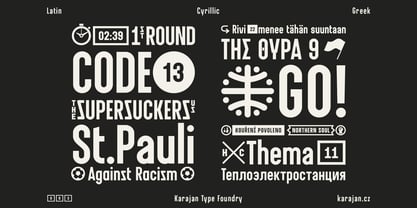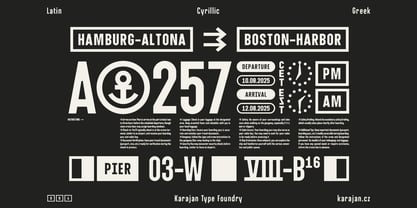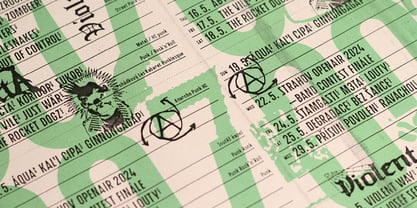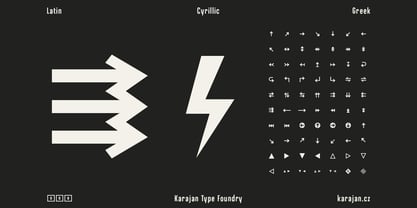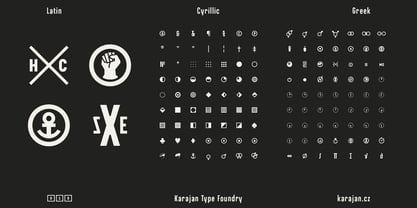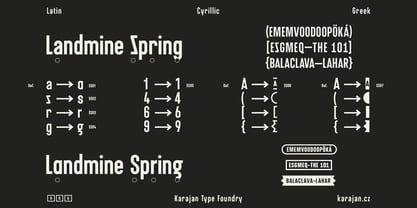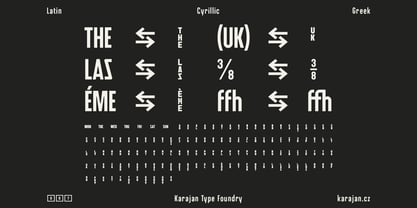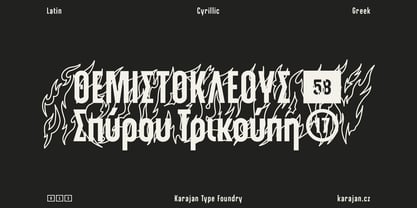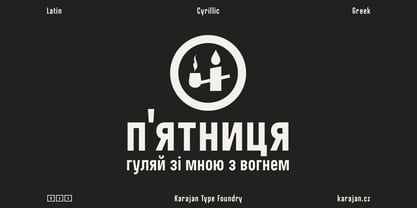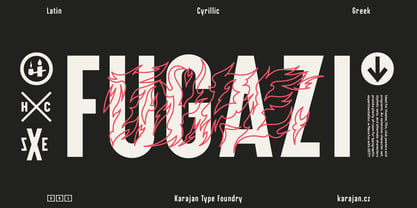
The Fugazi Font Family was designed by Jan Arndt and published by Karajan Type Foundry. Fugazi contains 1 styles. More about this family
This typeface pays tribute to one of the most iconic bands that performed at Klub 007 in Prague's Strahov district, while also honoring Klub 007 Strahov, the oldest surviving music venue in Czechia. Known for its eclectic mix of music genres, including punk, hip hop, ska, reggae, and rockabilly, this venue stands as a cultural beacon for music connoisseurs and enthusiasts alike. Originally crafted for the club's monthly programmes, the typeface features a highly proportional design, making it ideal for both text and headline applications. It boasts a diverse array of glyphs, including discretionary ligatures for international vehicle registration codes and abbreviations for days of the week. Furthermore, it includes genre-related and activist pictograms, along with an extended set of arrows. This typeface is part of a new identity developed by Karel Haloun, Petr Kudláček, and Jan Arndt, elegantly incorporating elements from historical programme flyers through a logotype based on a simple grid. Perfect for branding, editorial design, and web applications, this typeface seamlessly combines functionality with a rich cultural narrative, making it a versatile choice for various creative projects.
Karajan Type Foundry, established in 2024 in Prague, is named after its founders, Karel Haloun and Jan Arndt. This innovative type foundry specializes in crafting headline fonts that push the boundaries of functionality, experimentation, and utility. Karel Haloun, a seasoned type designer, previously led the type design and typography studio at the Academy of Arts, Architecture & Design (UMPRUM) in Prague. His former student, Jan Arndt, brings fresh perspectives to the craft. Their meticulous font creation process emphasizes the richness of each typeface, ensuring optimal application across various design contexts. With a focus on modern aesthetics and practical usability, Karajan Type Foundry caters to designers and industries such as editorial, tech, and retail, seeking distinctive and impactful typography that sets them apart in the market.